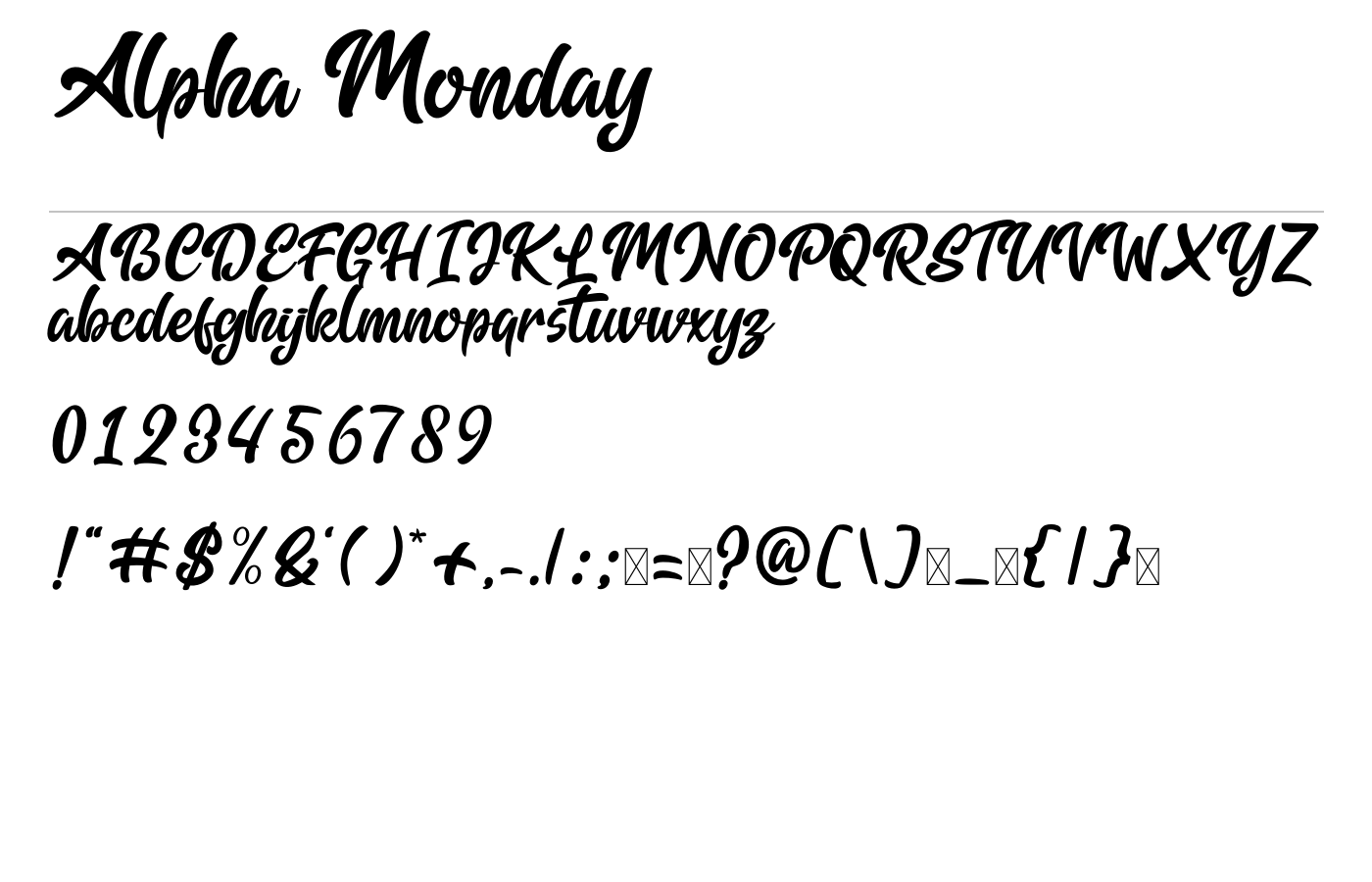
Alpha Monday is a lively script font with bold, flowing strokes that evoke a warm, handcrafted feel. Its smooth curves and energetic style make it perfect for branding, packaging, and designs needing a friendly yet confident voice. This font works well in headlines and logos, giving a personal and approachable touch without sacrificing readability.
Alpha Monday Font
About Alpha Monday Font